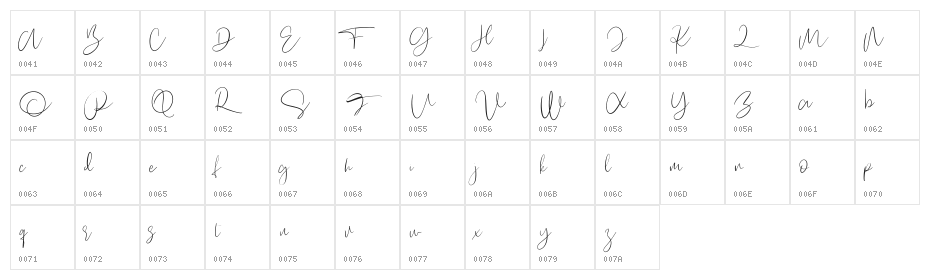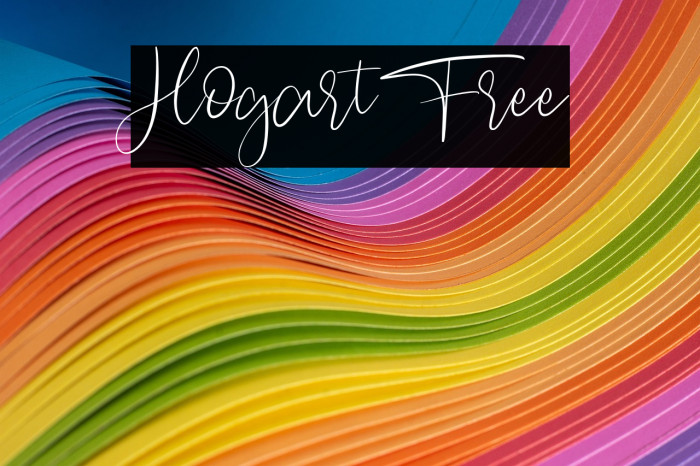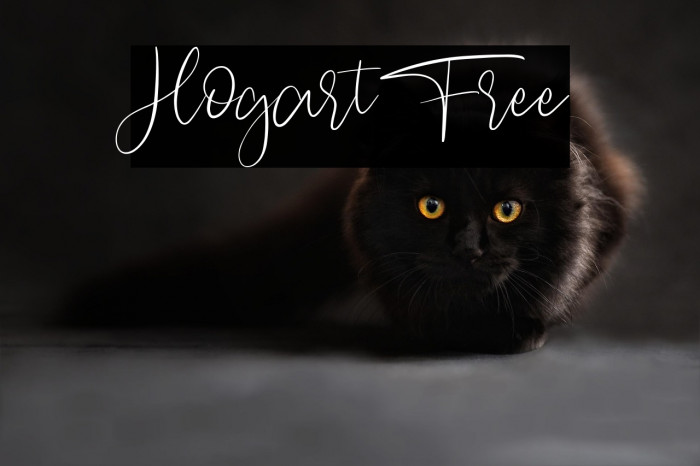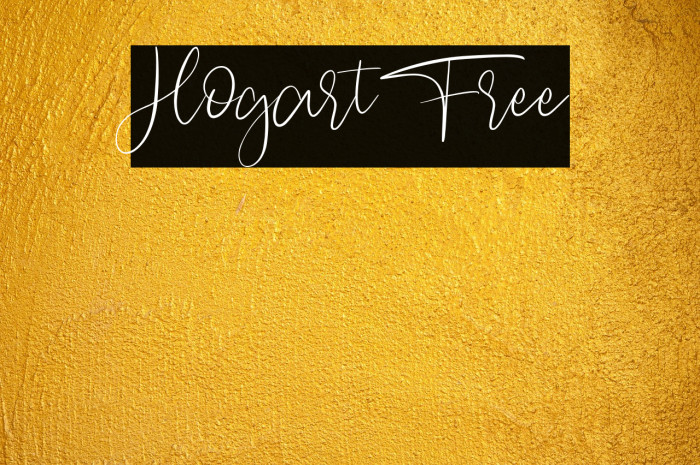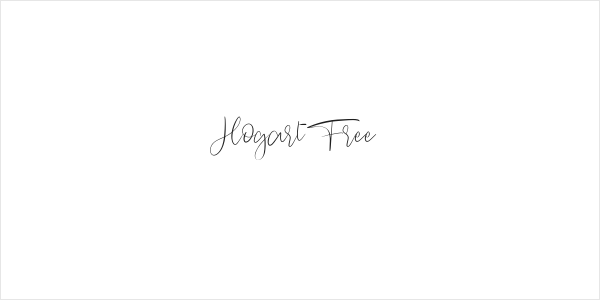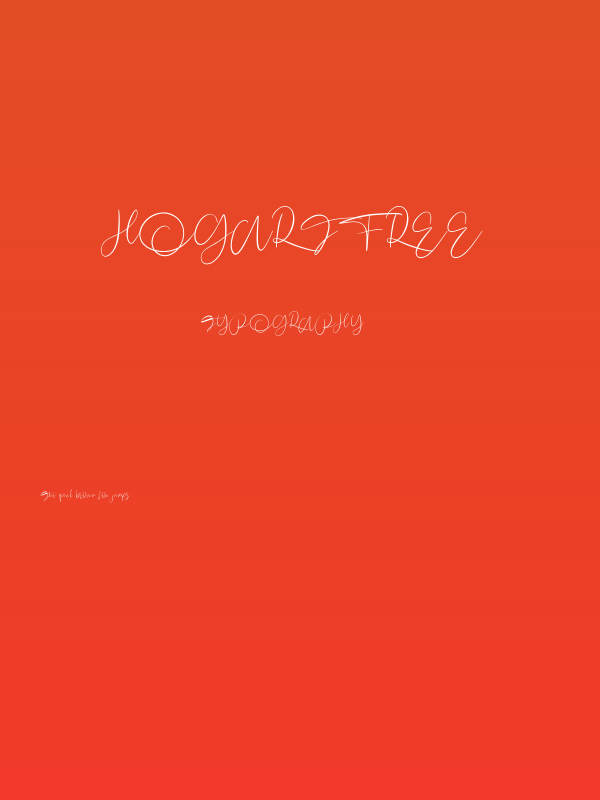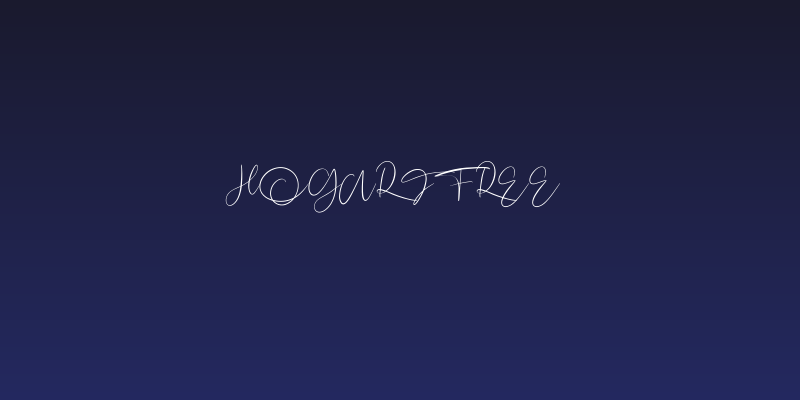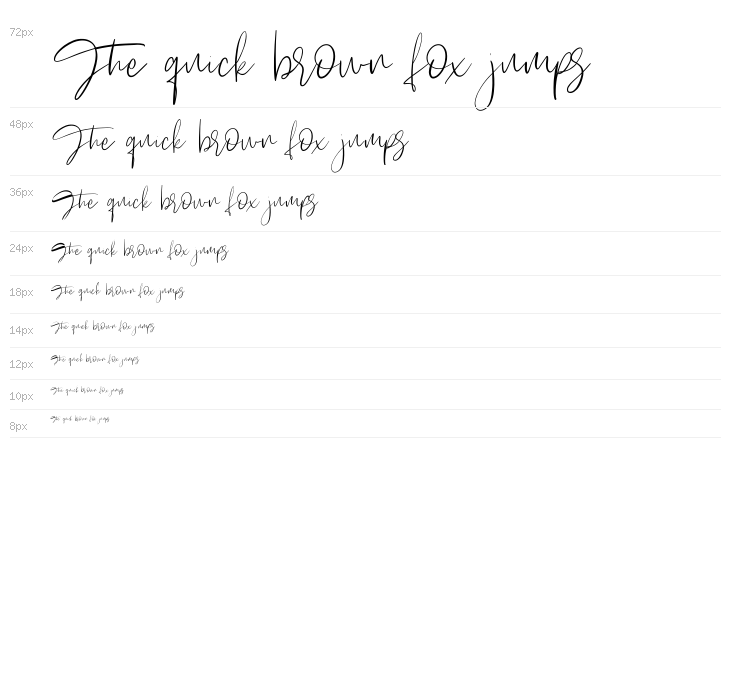
Hogart Free Font
Hogart Free Description
This font features an elegant and flowing script style, characterized by its smooth, continuous strokes and graceful curves. The letters are interconnected, creating a seamless and fluid appearance that mimics natural handwriting. The uppercase letters are slightly more elaborate, with decorative flourishes that add a touch of sophistication. The lowercase letters maintain a consistent flow, enhancing readability while retaining an artistic flair. This font's delicate and refined nature makes it ideal for projects that require a personal and elegant touch.